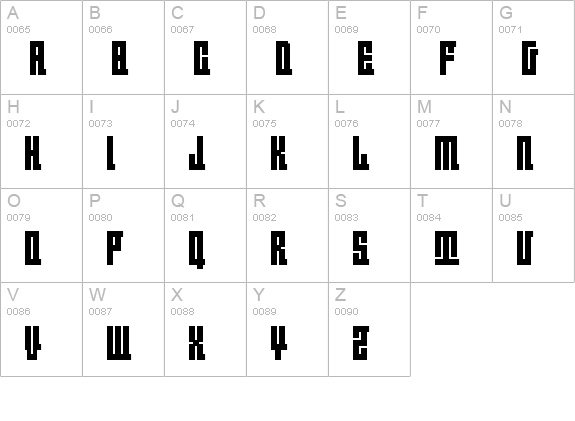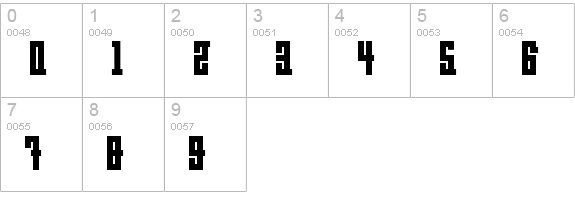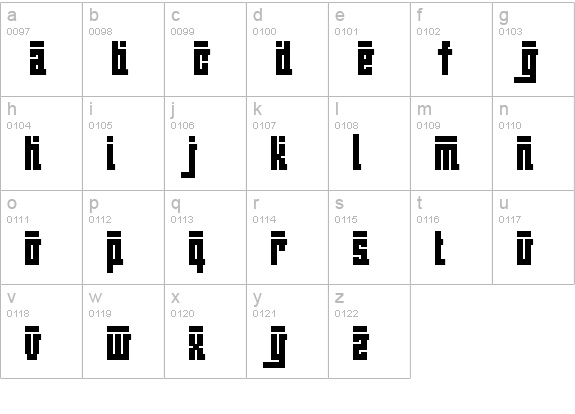
BeijingWigoWhat_crazy Font Details
BeijingWigoWhat_crazy font is a fun and quirky typeface that is sure to make your designs stand out! With its unique and playful style, this font is perfect for adding a touch of excitement to any project. Whether you're working on a poster, flyer, or social media graphic, BeijingWigoWhat_crazy font is sure to catch the eye of your audience. The best part? BeijingWigoWhat_crazy font is completely free to download at FontsMarket.com! You can easily add this font to your collection and start using it in your designs right away. Don't miss out on the opportunity to add some craziness to your projects with BeijingWigoWhat_crazy font - download it for free today!